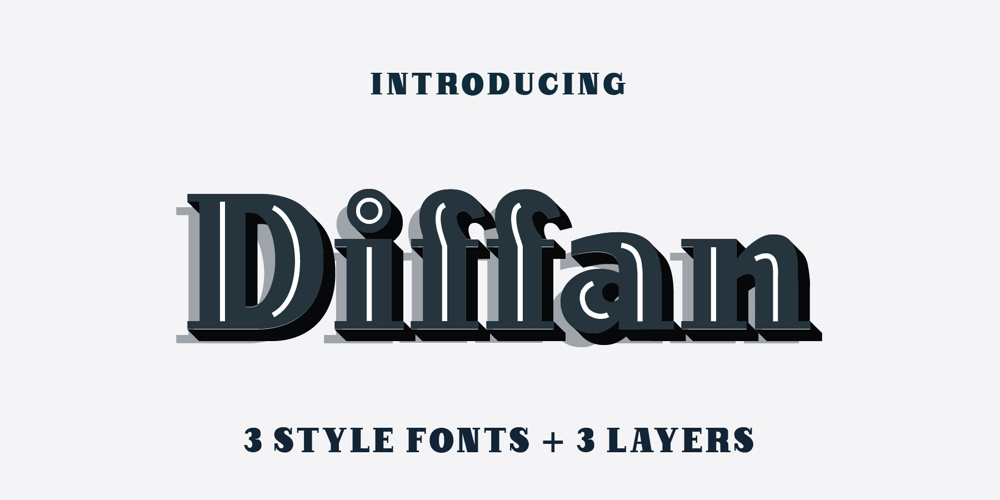
Diffan Font Family was designed by Iqbal Pauji and published by Typebae. Diffan contains 6 styles and family package options. Diffan is a serif display typeface with an added layer that enhances the look. Diffan is the prefect font that creates logos, headlines, layouts and more.What’s Included? Uppercase, Lowercase, Numbers & Punctuation Multilingual PUA encoded Files Include : Diffan Regular, Smooth, Inline, Extrude, Shadow, Line